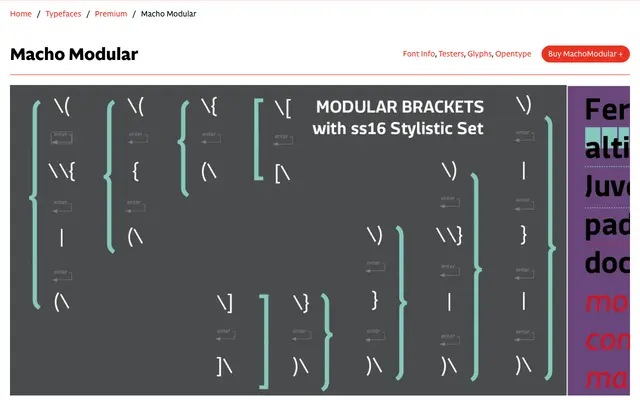
Macho Modular
A sans with a mathematically defined modular width system, originally designed for the MAN museum in Nuoro as part of its corporate identity.
Designed by Luciano Perondi in 2010 for the Museo d'Arte Provincia di Nuoro, the typeface uses a limited set of letter widths related to one another by fixed mathematical ratios. Every letter retains the same width regardless of weight, enabling vertical alignment across weights without glyph distortion, much as a monospaced font would. The system was inspired by the Olivetti Margherita and Linotype machine traditions, and the family spans five weights with matching italics plus variable font versions.
A sans-serif with a geometric, systematic character derived from its mathematically related modular width system, where each letter maintains the same width across all weights, drawing inspiration from Olivetti Margherita and Linotype machine systems.